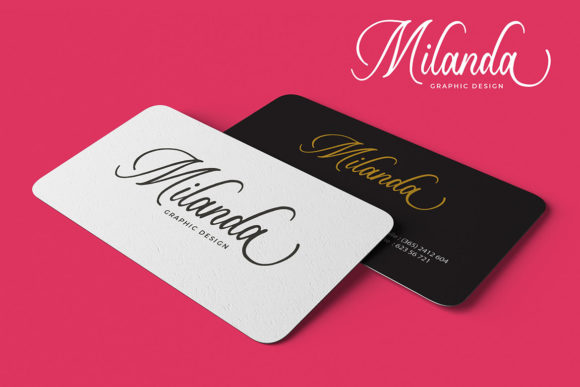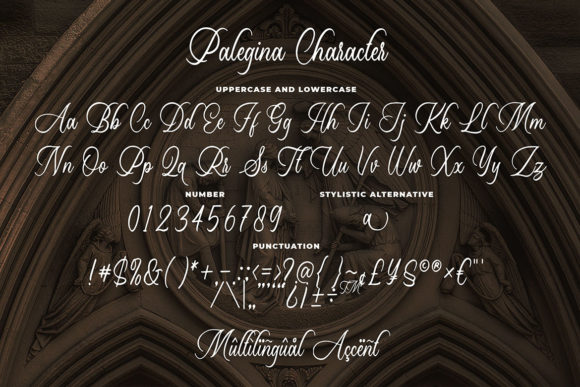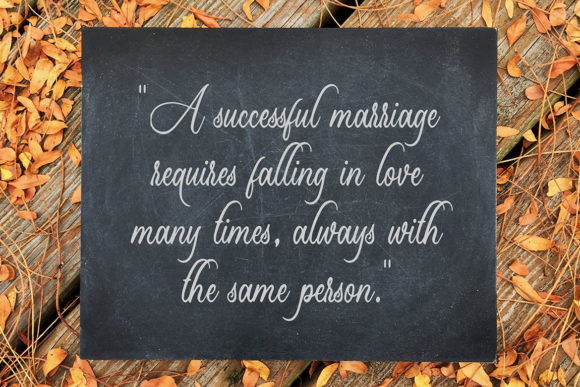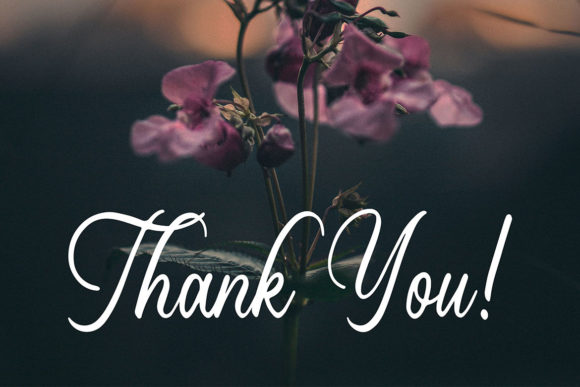
Palegina Font
About Palegina Font
Palegina is a classic calligraphic script with a timeless feel. It will add a touch of sophistication to any creative project!